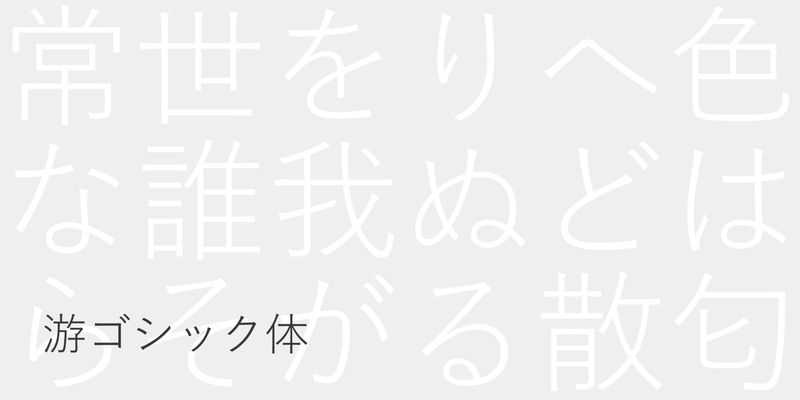
Yu Gothic Pr6N Font Free Download is a modern, clean sans-serif typeface designed for Japanese and Latin scripts with enhanced readability and contemporary styling. The Pr6N version includes an extensive character set—over 23,000 glyphs—supporting full Japanese typography (kanji, hiragana, katakana) as well as Latin alphabets, making it ideal for multilingual projects and global branding.
With its geometric structure and crisp letterforms, Yu Gothic Pr6N is perfect for web design, user interfaces, signage, presentations, and print materials. It offers excellent clarity even at small sizes, thanks to its balanced proportions and open spacing, which enhance legibility on both screens and paper.